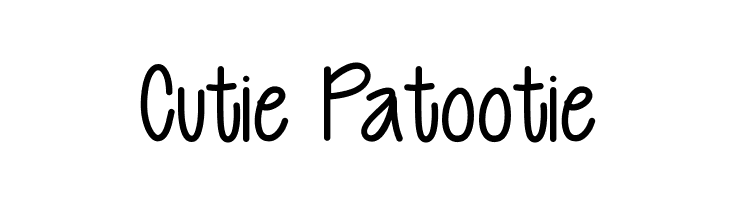
A segmented, digital-style font inspired by classic LCD displays.
( Fonts by www.gliphmaker.com. Personal-use only. For commercial use please contact owner. )
A bold, gothic blackletter font with sharp, angular lines and ornate details.
( Fonts by Situjuh Nazara )
A bold, italicized handwritten font with a dynamic and modern style.
( Fonts by Jason Arthur - JibbaJabba Fonts - www.myspace.com/jasonarthurloaded )
A bold, playful handwritten font with a dynamic and friendly style.
( Fonts by CannotIntoSpaceFonts - KineticPlasma Fonts - Personal-use only. For commercial use please contact owner. )
A bold, modern sans-serif font with a slight oblique angle and geometric design.